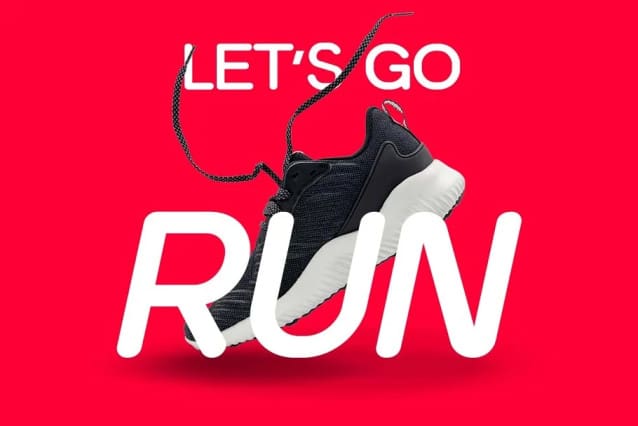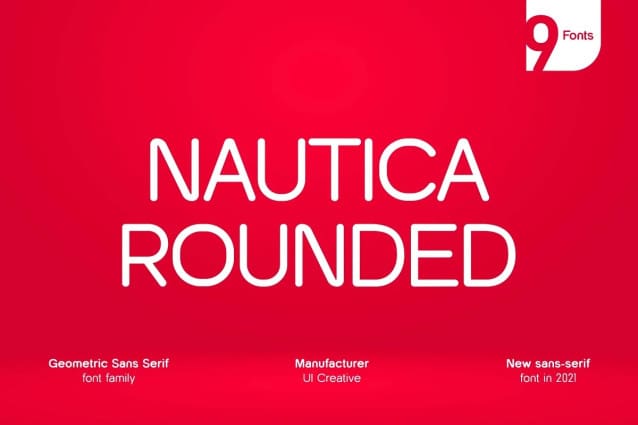
Nautica Rounded Font
Nautica Rounded Font – Geometric Sans Serif Family Font, that feels beautiful classy, elegant, and modern. This font is ideally suited for a wide variety of projects, such as signature, stationery, logo, wedding, typography quotes, magazine or book covers, website headers, clothing, branding, packaging design, and more. Also, fashion-related branding or editorial design displays both masculine and feminine qualities.